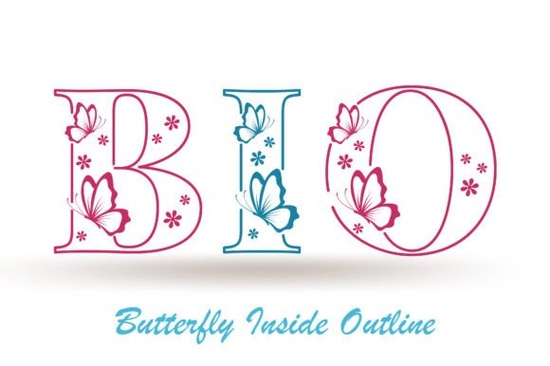
If you're looking for a decorative font that blends whimsy with elegance, the Butterfly Inside Font is worth a closer look. Designed with delicate outlines and subtle butterfly motifs built right into each letterform, it brings a soft, artistic touch to any creative project whether you’re designing greeting cards, social media graphics, or printable wall art.
This font stands out because it doesn’t just add butterflies as separate clipart elements; they’re thoughtfully integrated into the letter shapes themselves. That means your text becomes part of the design, not just a label beside it. For crafters and small business owners who want their work to feel handcrafted yet polished, this kind of detail makes a real difference.
What kinds of projects work best with Butterfly Inside?
The ornamental style of Butterfly Inside shines in personal and boutique-style applications. Here are a few ideas where it truly fits:
- Handmade greeting cards – Use it for wedding invitations, baby announcements, or seasonal cards where a gentle, nature-inspired aesthetic is welcome.
- Social media quotes – Pair short affirmations or poetic lines with pastel backgrounds for Instagram posts that feel both calming and visually engaging.
- Print-on-demand products – Think mugs, tote bags, or journals featuring phrases like “bloom where you’re planted” or “light as a butterfly.” The font’s outline style prints cleanly on light- and dark-colored items alike.
- Wall art and printable decor – Combine it with floral illustrations or watercolor textures for downloadable art that customers can frame at home.
Because it’s an outline font, it also layers well. You can fill the interior with color, patterns, or even tiny icons if your design software allows. This flexibility gives you room to personalize without overwhelming your layout.
How does it compare to other decorative fonts?
Not all decorative fonts are created equal. Some lean too heavily into ornamentation and become hard to read, while others feel generic. Butterfly Inside strikes a balance it’s detailed but still legible at medium to large sizes, and its theme feels cohesive rather than cluttered.
If you’ve used fonts like New Moon, you’ll notice a similar attention to mood and atmosphere, though Butterfly Inside leans more toward natural motifs than celestial ones. Both belong to the broader category of decorative display fonts, which are ideal for headlines, logos, or short phrases not body text.
Another option in the same family is, of course, the Butterfly Inside Font itself, which pairs beautifully with minimalist sans-serifs if you need contrast in your typography hierarchy. Try using it just for the main headline and a clean font like Montserrat or Lato for supporting text.
Tips for using Butterfly Inside effectively
To get the most out of this font, keep these practical pointers in mind:
- Avoid small sizes. Because of its fine outlines and internal details, it’s best used at 24pt or larger especially for print.
- Give it breathing room. Pair it with generous spacing and simple backgrounds so the butterfly elements don’t get lost.
- Limit usage to key phrases. One or two words often have more impact than a full paragraph.
- Test print quality. If you’re selling physical goods, always do a test print to ensure the thin lines reproduce clearly on your chosen material.
For those new to working with ornamental typefaces, remember: less is often more. A single word set in Butterfly Inside can become a focal point without competing with other design elements.